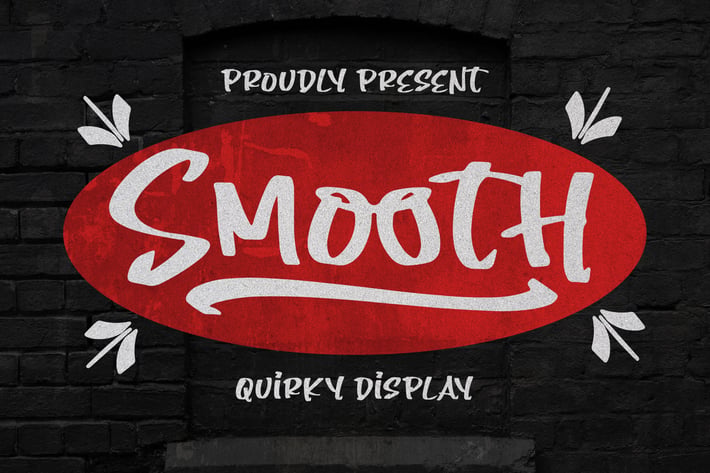
Smooth Quirky Display Font
Smooth Quirky Display Font brings a bold, handmade energy to your creative work. Its playful strokes and slightly rugged edges make it stand out in any setting — ideal for digital and printed designs that need a touch of personality and confidence.
Unique quirky display style
Perfect balance between rough and smooth textures
Poster headlines and bold titles
Streetwear or music branding
Creative campaigns and promotions
Modern packaging and product designs
Eye-catching social media visuals
Bring character to your words — bold, fun, and full of handmade charm.